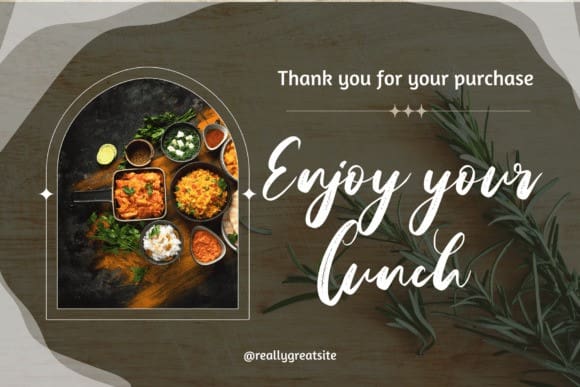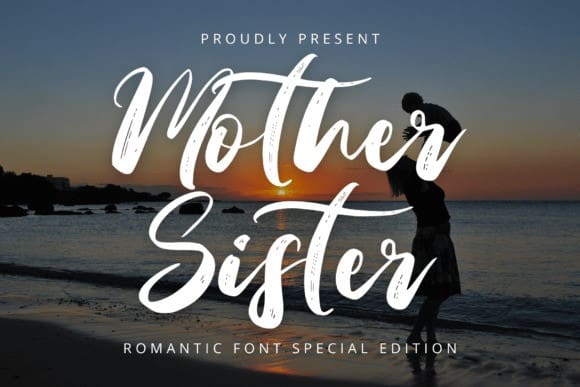
Mother Sister Font
Mother Sister Font, meticulously crafted in a romantic script style that sparks visual poetry and artistic charm. Perfectly tailored to meet a diverse array of design needs, this font syncs flawlessly with your creative work, imparting a sophisticated touch to your design canvases. With a rich array of ligatures and alternates in its arsenal, Mother Sister font breathes versatility into your designs, allowing for a boundless exploration of artistic possibilities. Immerse yourself in the captivating allure of MotherSister font and elevate your design ethos to unprecedented heights.